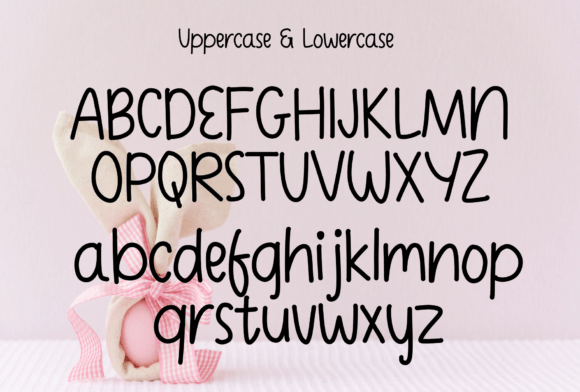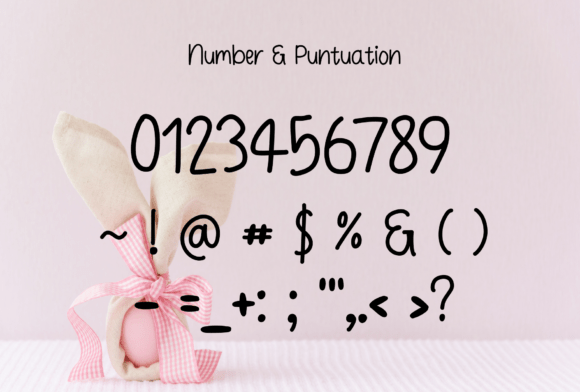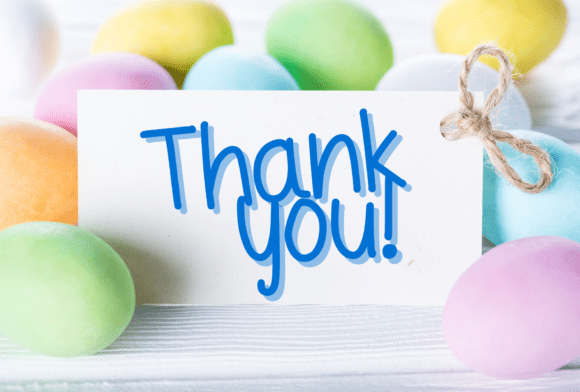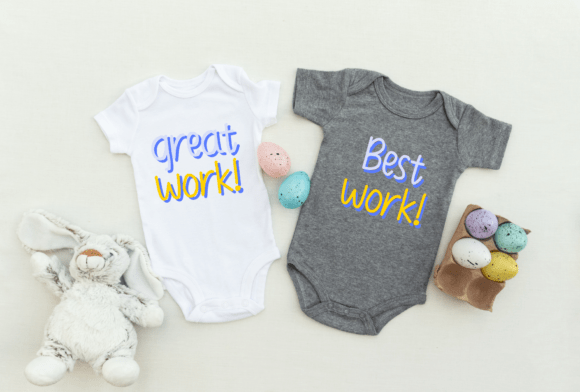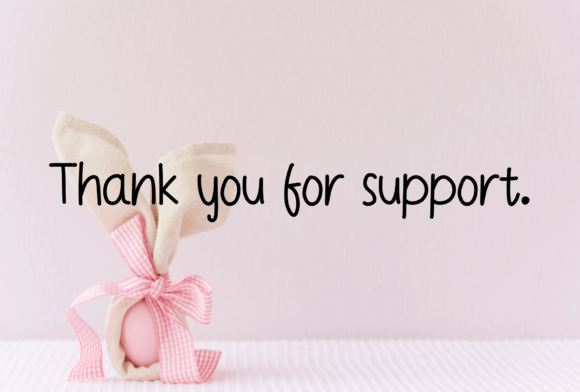
Introducing Good Morning Font: Add a Touch of Warmth and Whimsy to Your Designs
Are you looking for a font that can bring a dash of personality and charm to your creative projects? Look no further than Good Morning Font, a delightful and playful handwritten font that’s perfect for designers, crafters, and anyone looking to add a touch of warmth and friendliness to their designs.
What Makes Good Morning Font Special?
Good Morning Font is a beautifully crafted handwritten font that’s designed to evoke a sense of softness, cheerfulness, and approachability. Its smooth rounded strokes and friendly style make it perfect for crafting designs that feel welcoming and inviting. Whether you’re designing for children, lifestyle brands, or creative crafts, this font adds a cheerful and approachable touch that’s sure to delight your audience.
Versatile and Easy to Use
One of the best things about Good Morning Font is its versatility. This font works beautifully for a variety of creative uses, including:
- Branding: Add a personal touch to your brand’s identity with this unique and memorable font.
- Invitations: Create beautiful and eye-catching invitations for parties, events, and special occasions.
- Children’s products: Design fun and engaging products for kids, such as books, toys, and games.
- Social media graphics: Add a touch of personality to your social media posts and stories.
- Packaging: Create eye-catching packaging that stands out on store shelves.
- Stickers: Design fun and colorful stickers for kids and adults alike.
- Cricut projects: Use Good Morning Font to create custom signs, cards, and other DIY projects.
Font Features
Good Morning Font comes with a range of features that make it easy to use and versatile. These include:
- Uppercase & Lowercase letters: Perfect for writing titles, headings, and body text.
- Numbers & Punctuation: Complete your designs with numbers and punctuation marks.
- Smooth handwritten style: Gives your designs a friendly and approachable feel.
- Easy to read and versatile: Perfect for digital and print designs.
Why Choose Good Morning Font?
So why choose Good Morning Font for your next project? Here are just a few reasons:
- Personal touch: Good Morning Font adds a personal and human touch to your designs, making them feel more approachable and inviting.
- Easy to read: Despite its playful and handwritten style, Good Morning Font is easy to read and understand, making it perfect for body text and headings.
- Versatile: Use Good Morning Font for a wide range of creative projects, from digital designs to print materials.
- Cheerful and playful: This font is sure to bring a smile to your audience’s face with its cheerful and playful style.
Good Morning Font is a delightful and versatile handwritten font that’s perfect for designers, crafters, and anyone looking to add a touch of warmth and whimsy to their designs. With its smooth rounded strokes, friendly style, and easy-to-read personality, this font is sure to become a favorite in your design toolkit. So why wait? Download Good Morning Font today and start creating beautiful, cheerful designs that delight your audience!
Whether you’re a seasoned designer or a crafty DIY enthusiast, Good Morning Font is the perfect choice for anyone looking to add a personal touch to their designs. So go ahead, get creative, and make your designs shine with Good Morning Font!